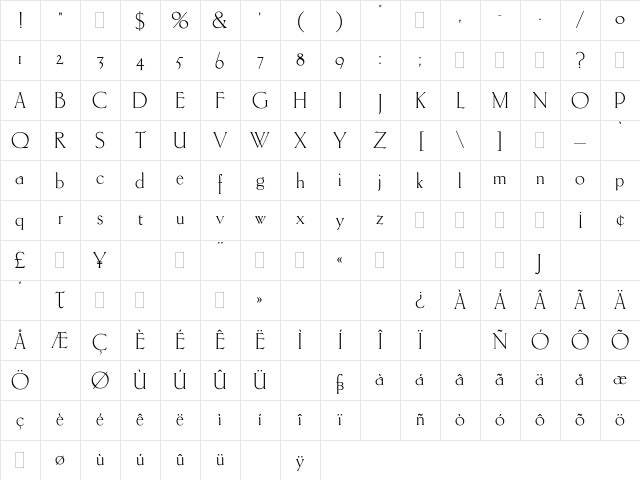
CarltonPlain Regular
Design Context for CarltonPlain
CarltonPlain is a composed and adaptable typeface that performs quietly and consistently across a wide range of design contexts.
Pro Tip: Use CarltonPlain in both headline and body roles to test its range before committing to a single application.